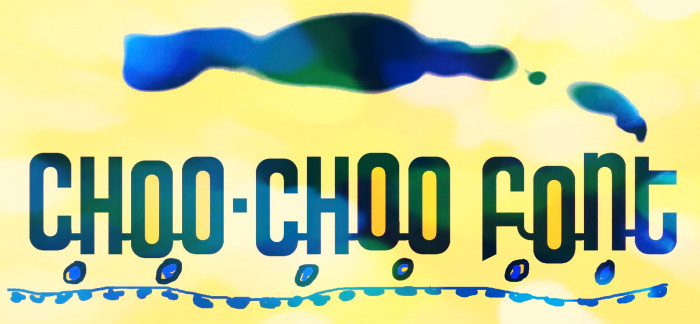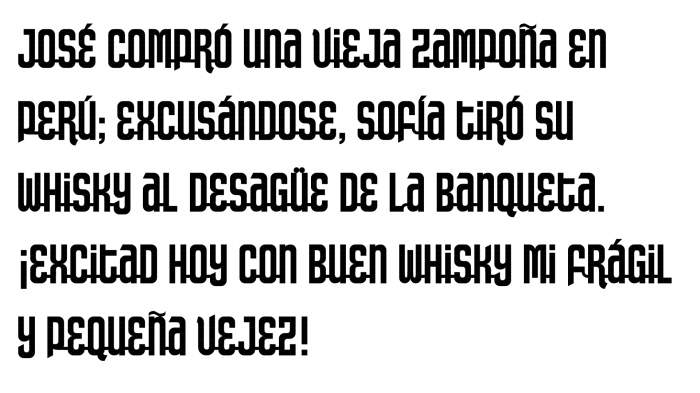
Another "2-in-1" fontstruct. To obtain a chained word, please write their letters using only the uppercase (= with connectors) and use the lowercase (= without connectors) to finish the last letter of your word. E.g.: HELLo. The lowercase works like a traditional font too.
very cleveer 2-in-1 concept, seems quite versatile